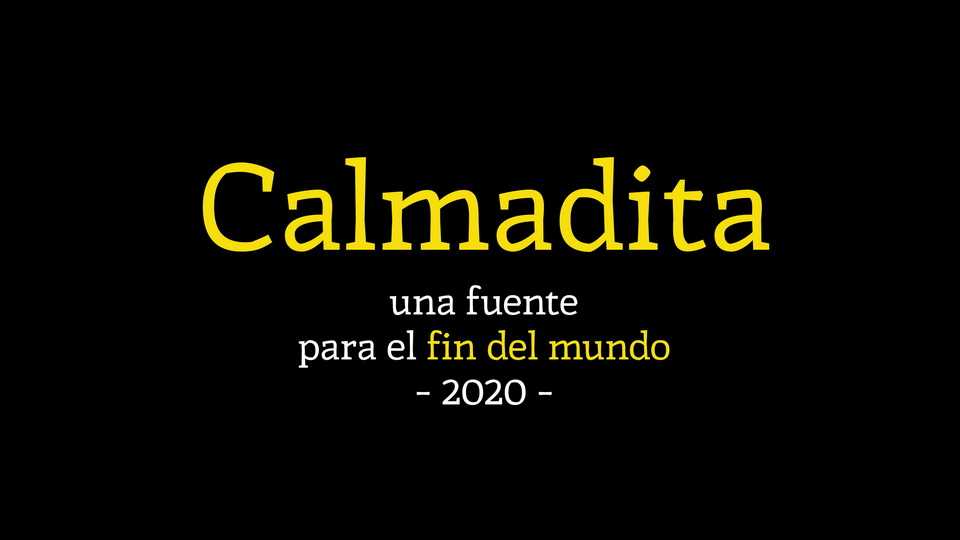
Download Calmadita font, a slab serif typeface that ideal for medium texts in digital environments. With its dynamic and brutal personality, Calmadita was intended for use in educational resources and digital literature for young people and children.